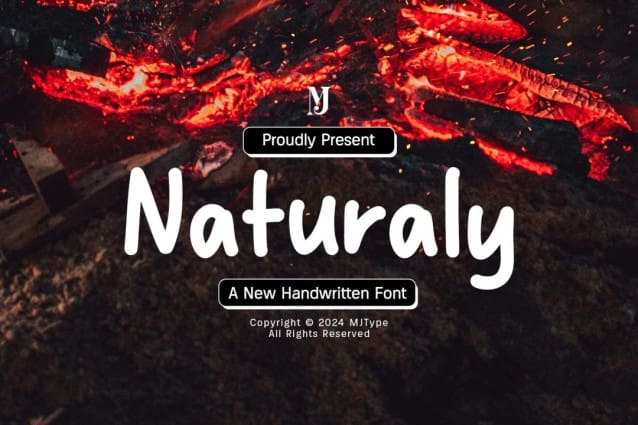
Naturaly Hand Font
Naturaly Hand Font is a playful and casual looking handwritten font. This gentle font will look gorgeous on a variety of design ideas. It will add a joyful and romantic touch to each of your projects!